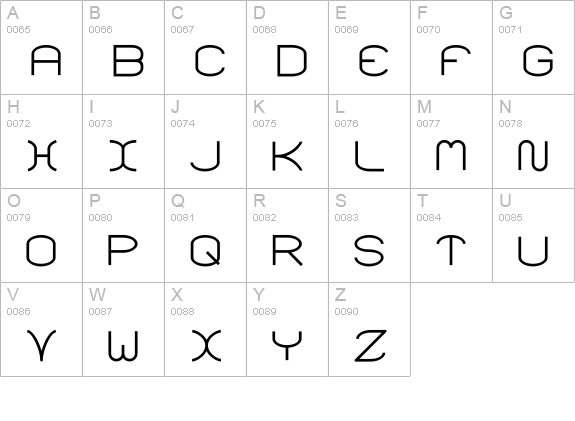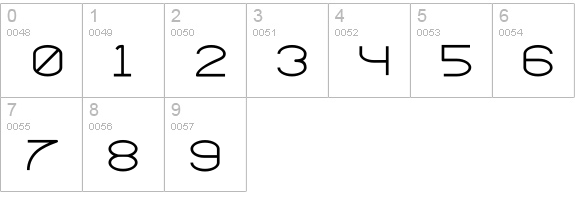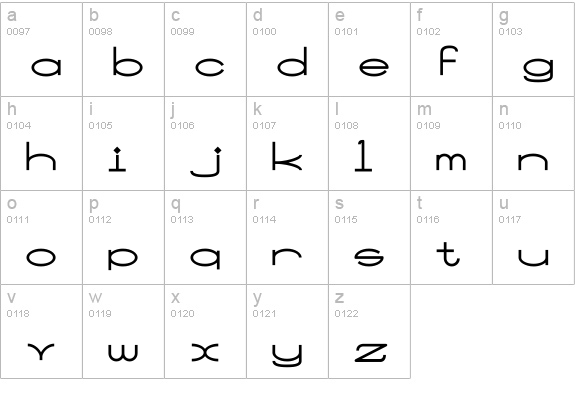
SantaMonciaMF Font Details
SantaMonciaMF is a captivating and stylish font that effortlessly blends modernity with a touch of sophistication. Its sleek and elegant design is perfect for a wide range of projects, from professional branding to creative displays. The clean lines and subtle curves of this font create a harmonious and visually pleasing aesthetic, making it a versatile choice for both print and digital designs. One of the most appealing aspects of SantaMonciaMF is that it is available for free! You read that right, this remarkable font can be freely downloaded from FontsMarket.com. This means that you can instantly add a touch of class and creativity to your projects without any added costs. Whether you are a professional designer looking to elevate your work or an individual seeking to add a unique flair to personal projects, SantaMonciaMF is the ideal choice. With its freely available download, this font offers a fantastic opportunity to enhance your designs with its charm and sophistication. Don't miss out on this incredible offer and get your hands on SantaMonciaMF today!